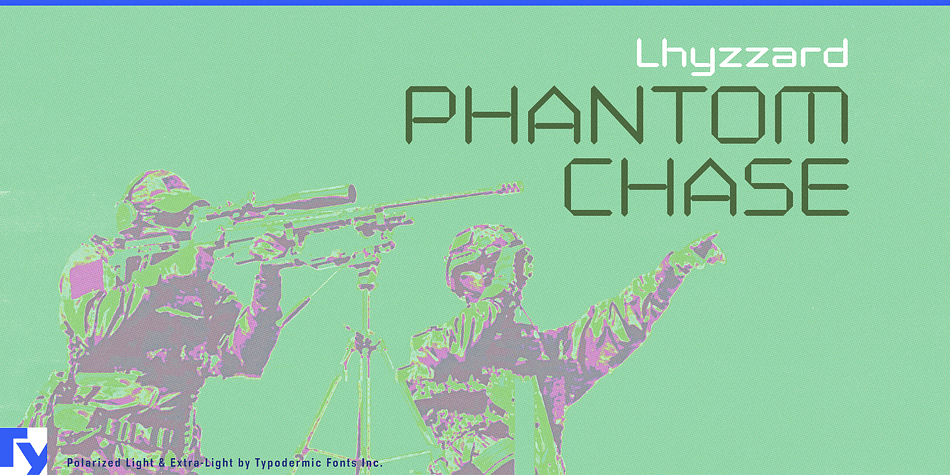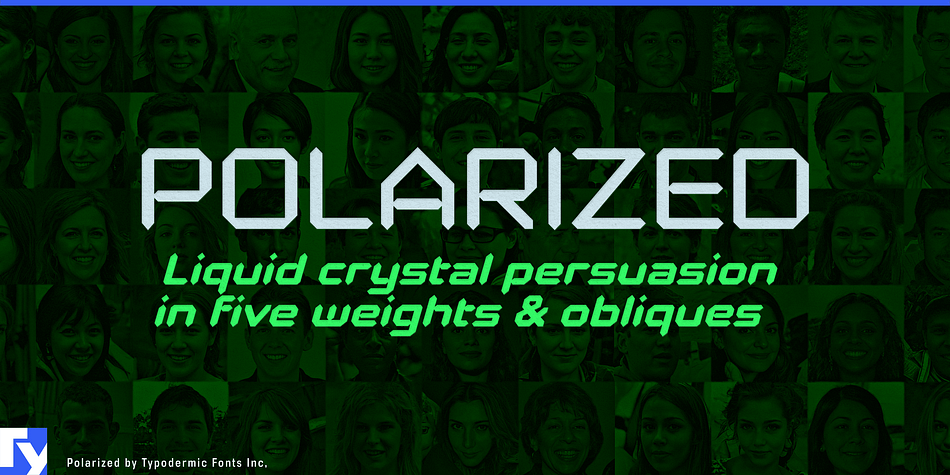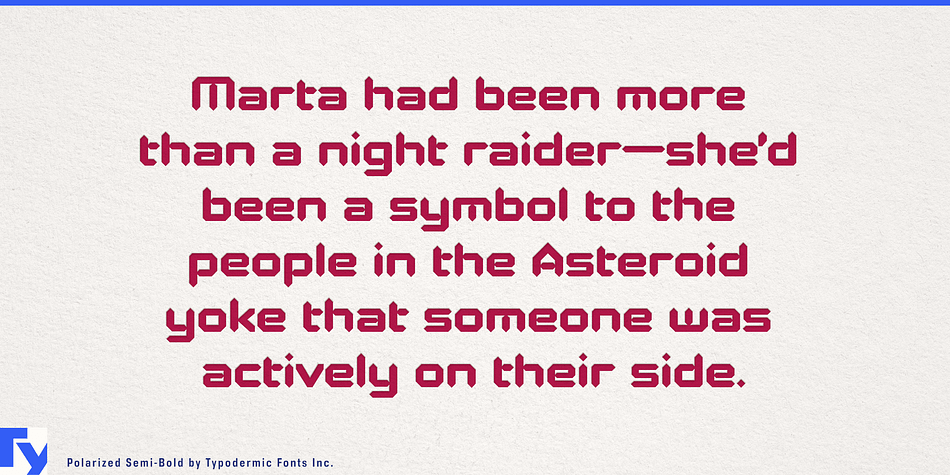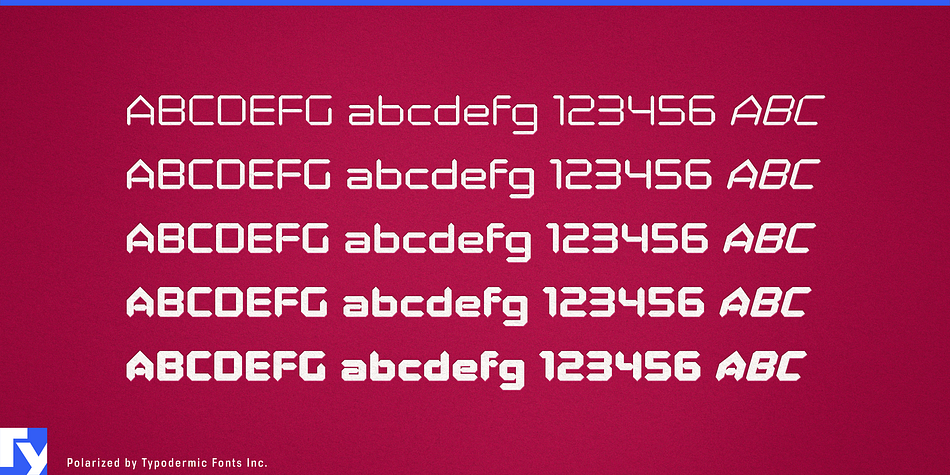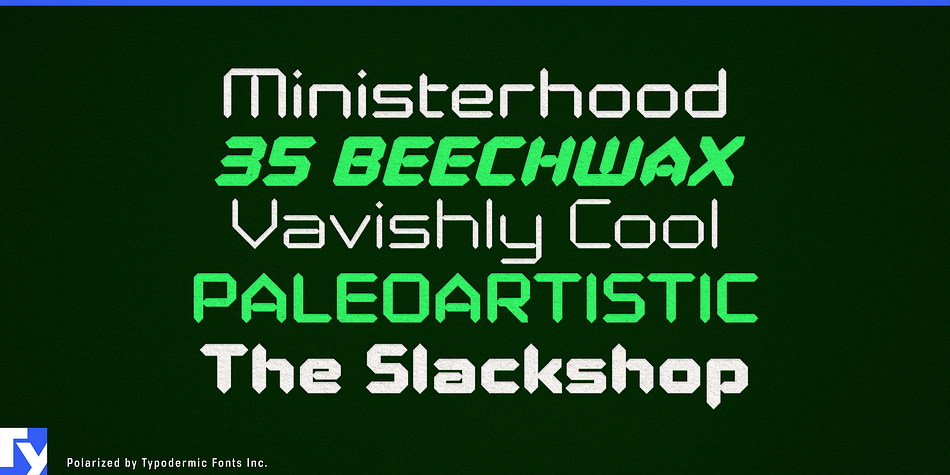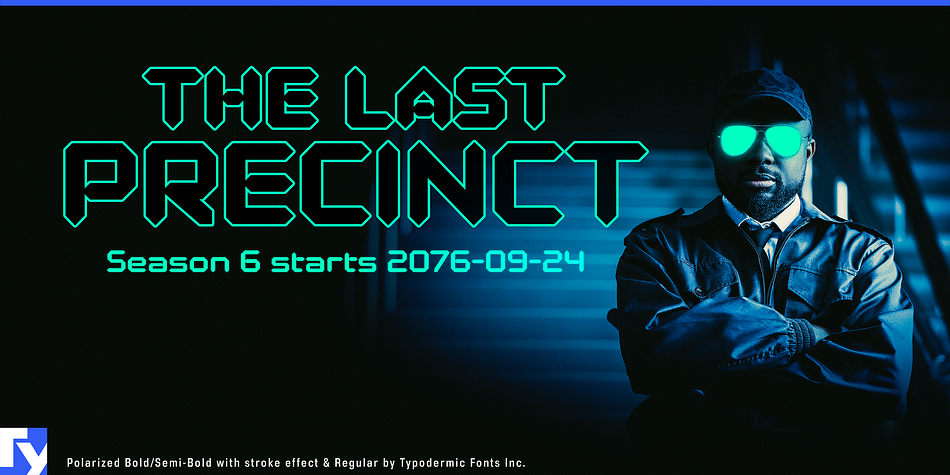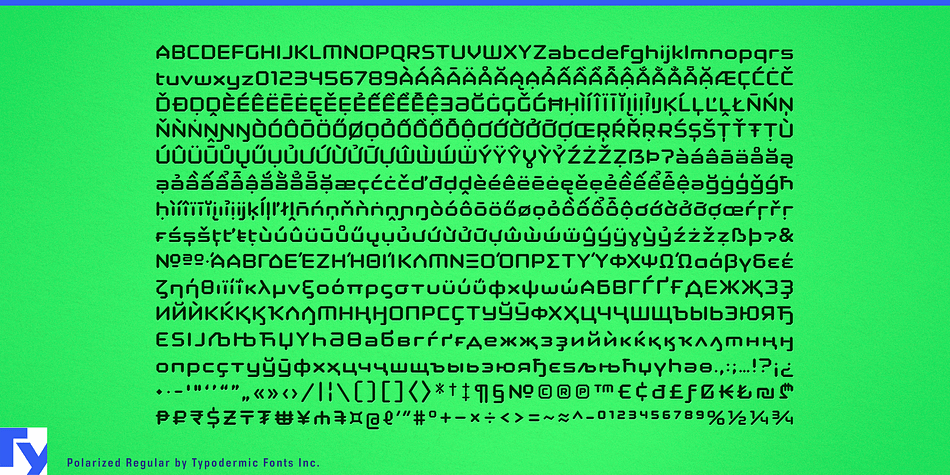
Designed by Ray Larabie, Polarized is a display font family. This typeface has ten styles and was published by Typodermic Fonts Inc.
Polarized is a technical, ultramodern typeface inspired by seven-segment liquid crystal numeric displays. Rather than simulating an authentic readout, Polarized reinterprets the LCD’s digital essence, creating an alphabet with a unique geometric corner logic. The character set covers most Latin-based languages as well as Vietnamese, Greek and Cyrillic. A breadth of currency symbols are incorporated as well as numeric ordinals, primes, and OpenType fractions. Polarized is available in Extra-Light, Light, Regular, Semi-Bold, and Bold with obliques.